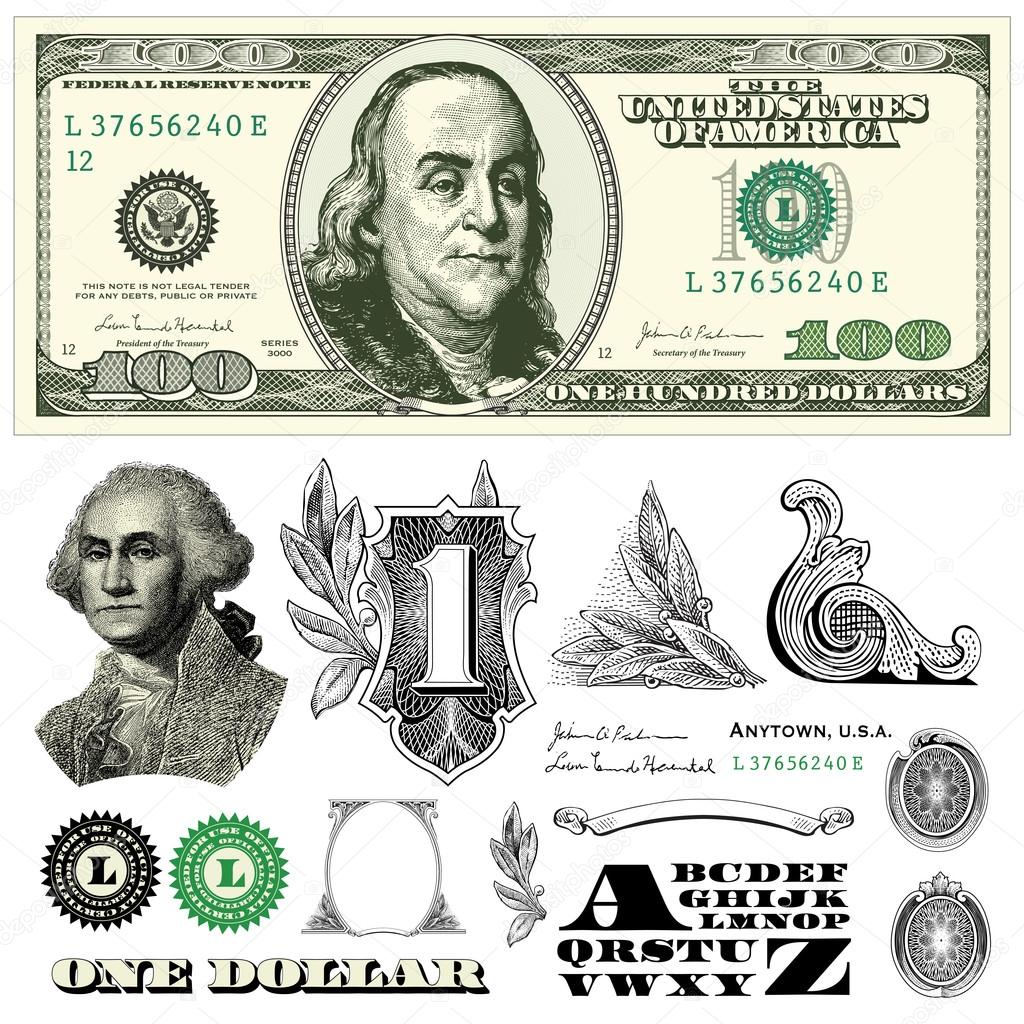
100 Dollar Bill Font
100 Dollar Bill Font - Free 100 dollar bill fonts (.ttf &.otf). Dollar bill is an all caps font that taken / inspired from letters in dollar bill. 100 dollar bill available in windows and mac os x version.
Dollar bill is an all caps font that taken / inspired from letters in dollar bill. Free 100 dollar bill fonts (.ttf &.otf). 100 dollar bill available in windows and mac os x version.
100 dollar bill available in windows and mac os x version. Dollar bill is an all caps font that taken / inspired from letters in dollar bill. Free 100 dollar bill fonts (.ttf &.otf).
Free 100 dollar bill fonts (.ttf &.otf). Dollar bill is an all caps font that taken / inspired from letters in dollar bill. 100 dollar bill available in windows and mac os x version.
100 dollar bill available in windows and mac os x version. Dollar bill is an all caps font that taken / inspired from letters in dollar bill. Free 100 dollar bill fonts (.ttf &.otf).
Free 100 dollar bill fonts (.ttf &.otf). 100 dollar bill available in windows and mac os x version. Dollar bill is an all caps font that taken / inspired from letters in dollar bill.
100 dollar bill available in windows and mac os x version. Dollar bill is an all caps font that taken / inspired from letters in dollar bill. Free 100 dollar bill fonts (.ttf &.otf).
100 dollar bill available in windows and mac os x version. Free 100 dollar bill fonts (.ttf &.otf). Dollar bill is an all caps font that taken / inspired from letters in dollar bill.
Dollar bill is an all caps font that taken / inspired from letters in dollar bill. Free 100 dollar bill fonts (.ttf &.otf). 100 dollar bill available in windows and mac os x version.
100 dollar bill available in windows and mac os x version. Free 100 dollar bill fonts (.ttf &.otf). Dollar bill is an all caps font that taken / inspired from letters in dollar bill.
100 dollar bill available in windows and mac os x version. Dollar bill is an all caps font that taken / inspired from letters in dollar bill.